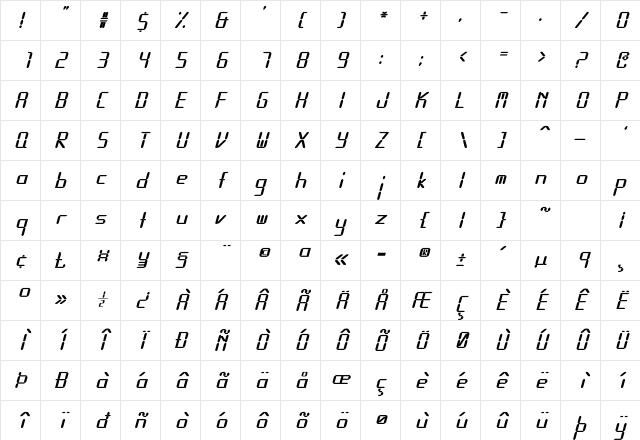
Calculator Bold Italic
Design Context for Calculator
Calculator is a composed and adaptable typeface that performs quietly and consistently across a wide range of design contexts. The slanted form adds forward momentum and visual energy. Its bold stroke weight gives it real presence on the page.
Pro Tip: Use Calculator for emphasis, pull quotes, and subheadings where its slanted energy can add rhythm to the layout.